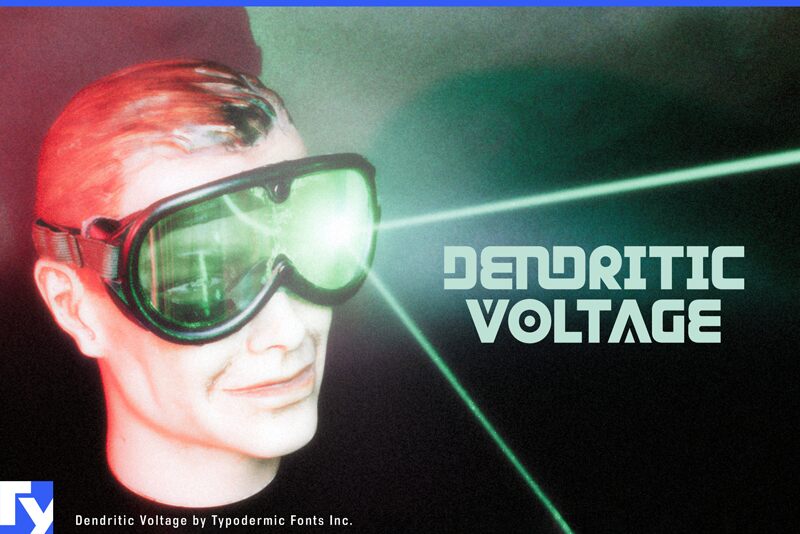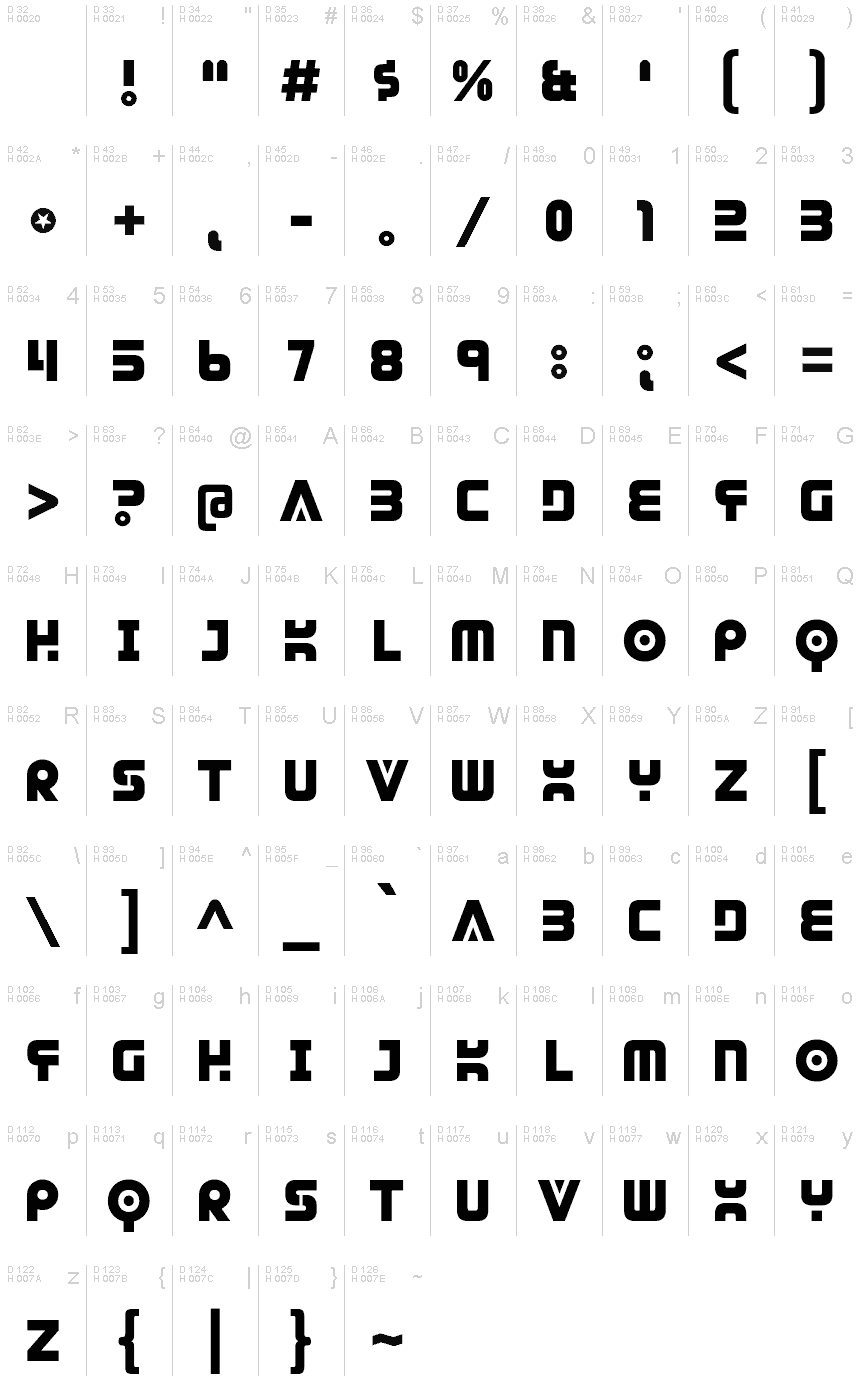
DendriticVoltage by Ray Larabie of Typodermic Fonts Inc. is a free futuristic display font built from massive, tightly fitted letterforms. Its squared construction and broad curves create a dense, machine-cut silhouette.
Gaming title cards and music posters share its forceful geometry, which recalls industrial hardware and oversized interface graphics. The compact shapes also suit merchandise and science-fiction event branding with a technical edge. On product packaging, the letters can become part of a circuit-like graphic rather than neutral labeling.
Dendritic Voltage is a techno font. This version has improved language coverage, additional symbols, improved accents, fractions, and numeric ordinals. The original narrow capitals in the lowercase set have been moved and remain accessible in OpenType-compatible applications through the stylistic alternates feature. Joined letter ligatures have also been added.
The former double L has been replaced with a single L. To restore the double L, type two Ls. Spacing and kerning have been revised, vertical alignment is more precise, and vertical metrics have been optimized for web performance.